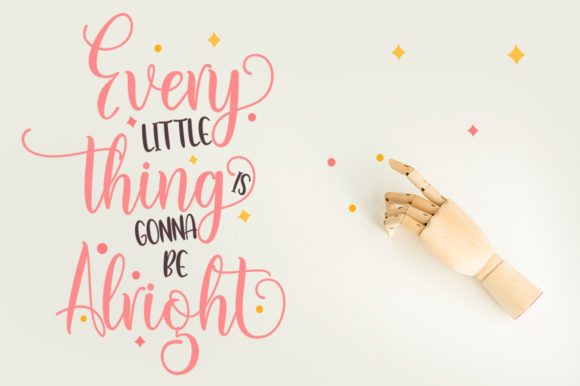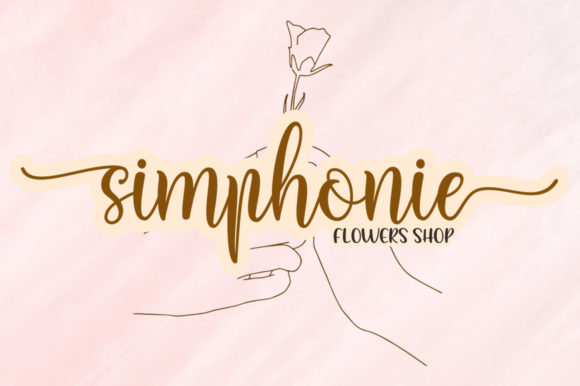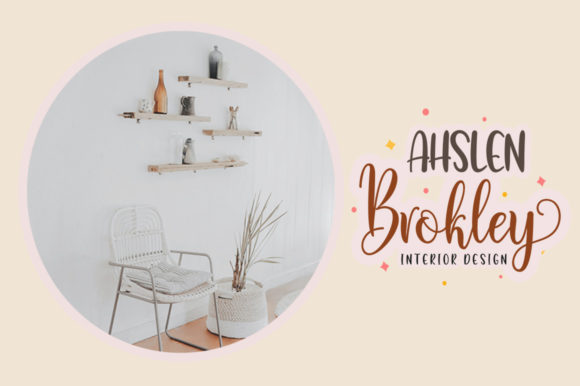
Introduction to Pinky Love Font Duo Font
Pinky Love Font is a modern handwritten font with two syles.
A carefully crafted collection of fonts combining informal, romantic, sweet, lovely design elements and hand-drawn typographic design elements This font is very nice for designing magazine previews and covers design, logo designs, shirt designs, invitations, cards, and other graphic needs.
Key Features of Pinky Love Font Duo Font